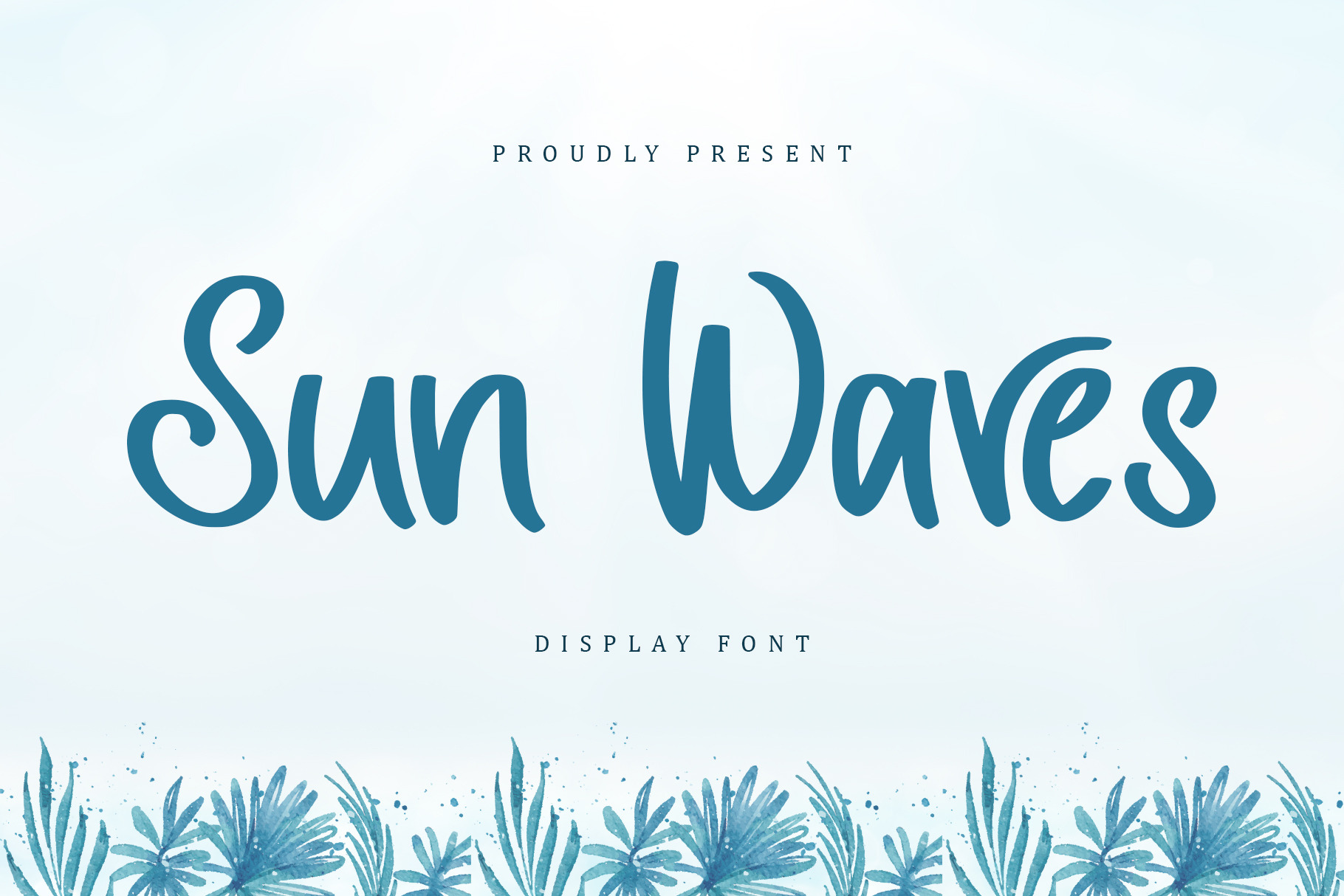
Sun Waves | Display Font
Sun Waves is a friendly and whimsical handwritten font. Cheerful and bright, this font is perfect for creating unique, playful designs.